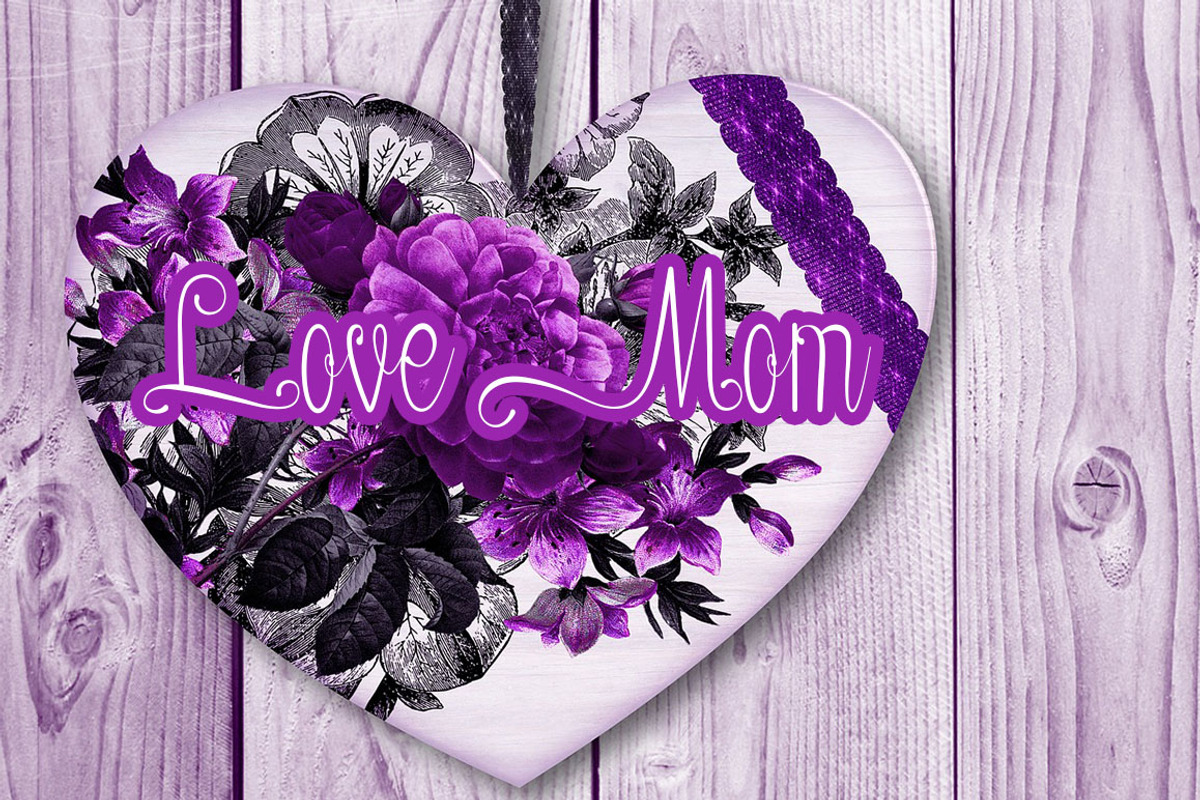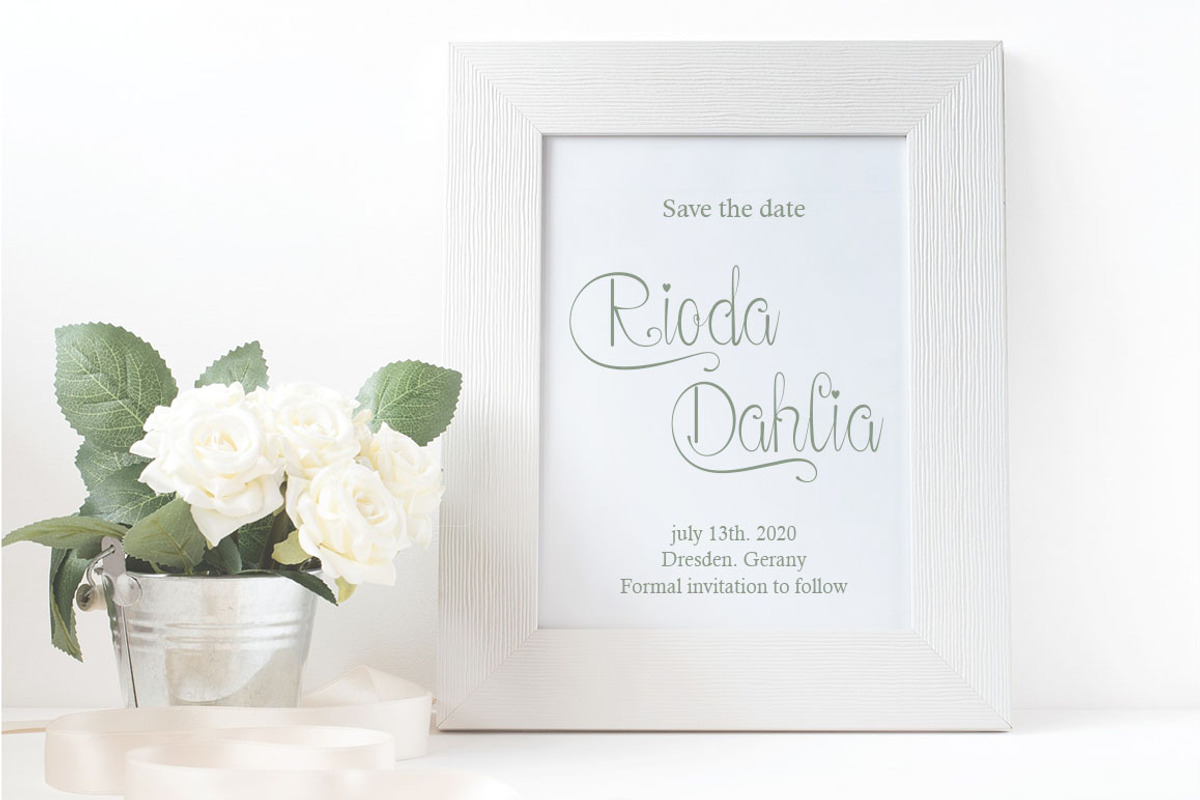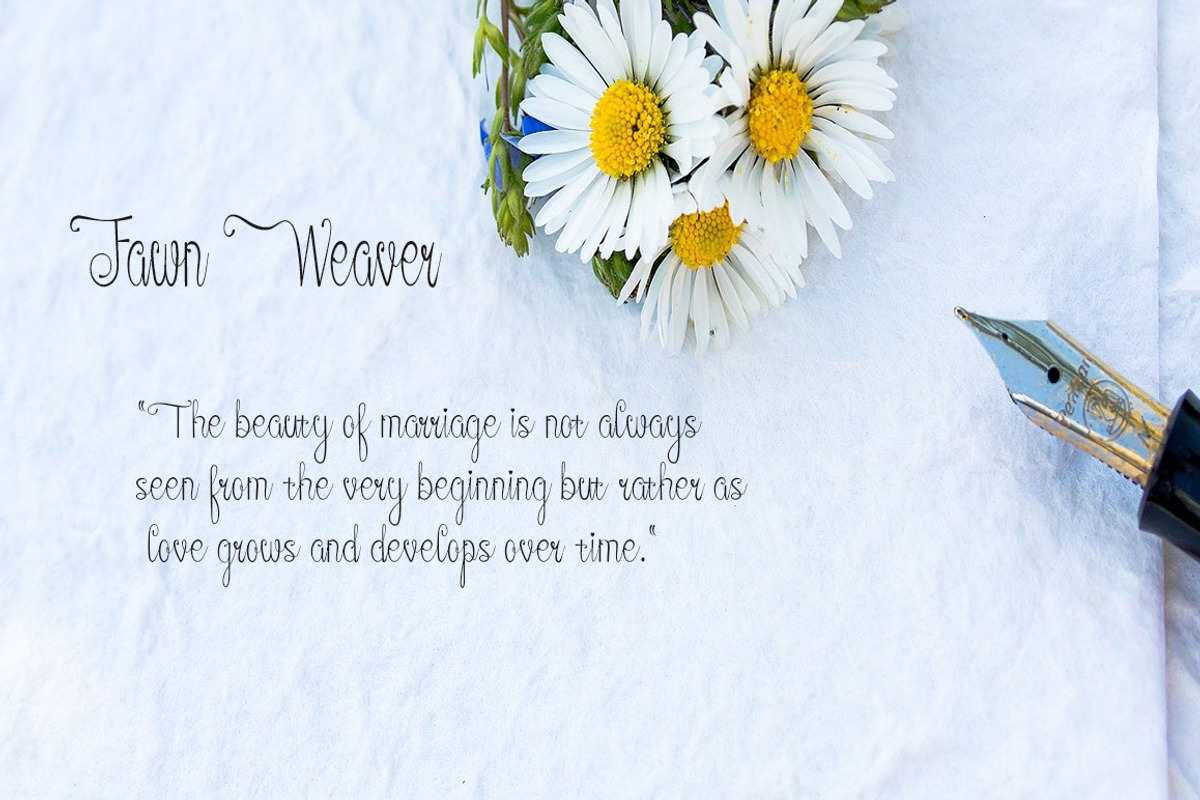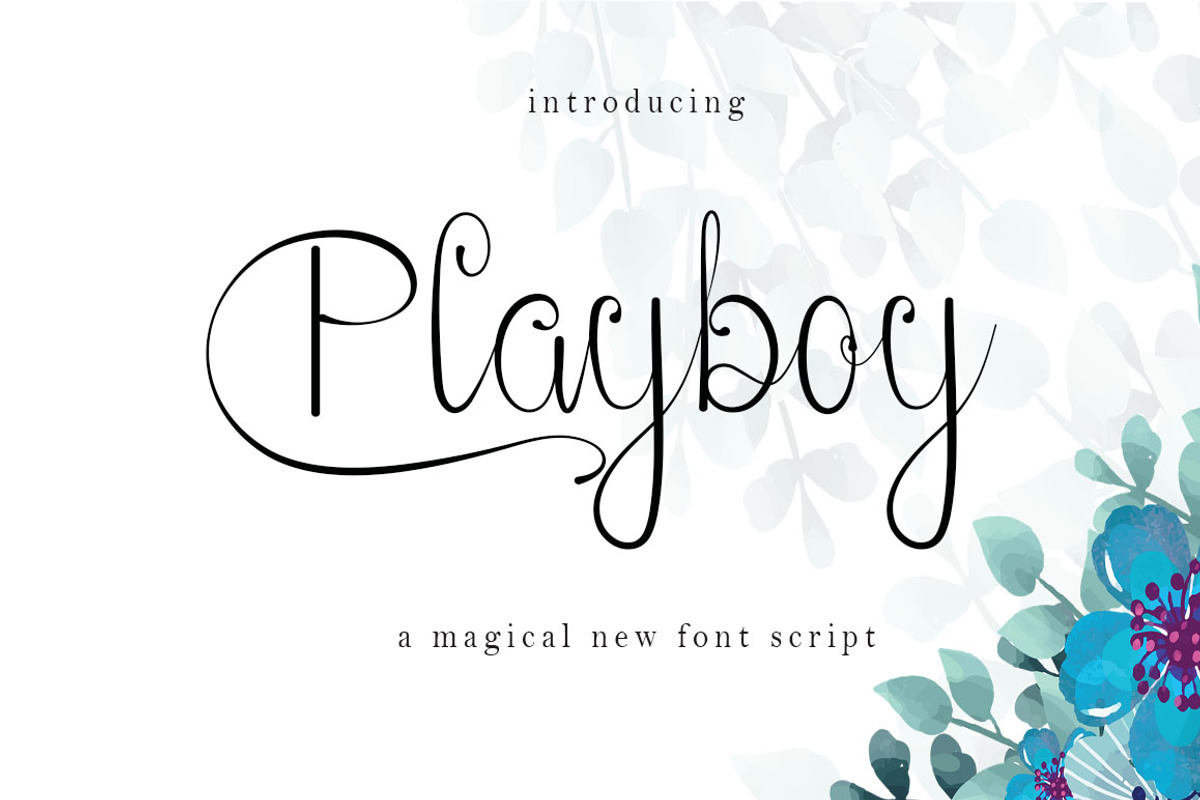
Playboy Modern Challigraphy
Playboy is a lovely script font featuring charming, playful characters that seem to dance along the baseline. Add this font to your most creative ideas, and notice how it makes them stand out!